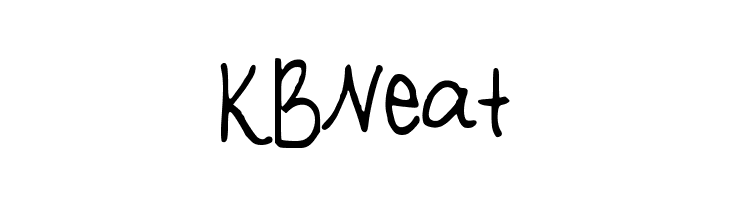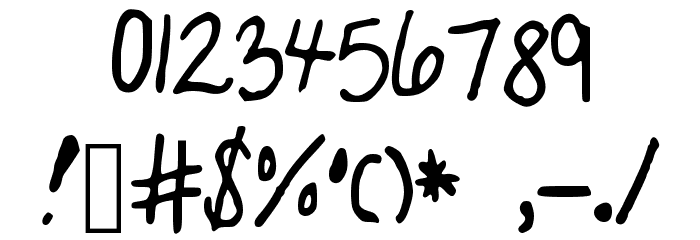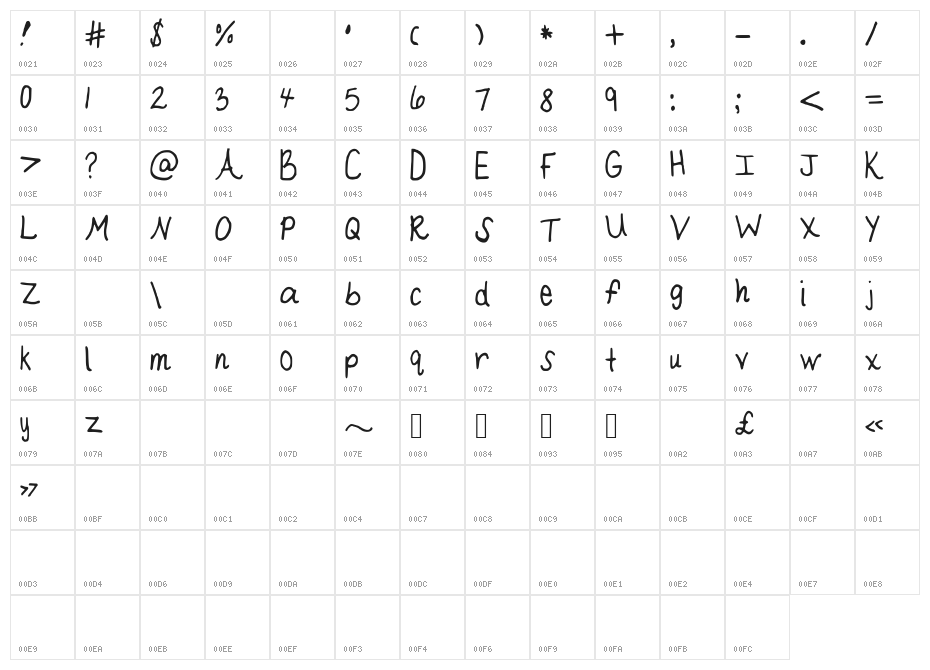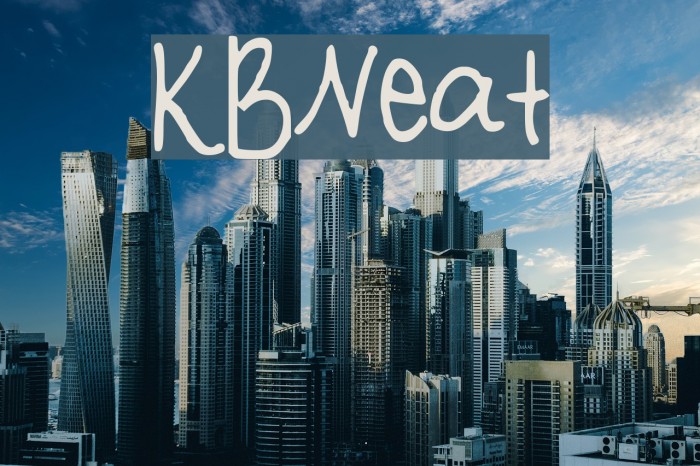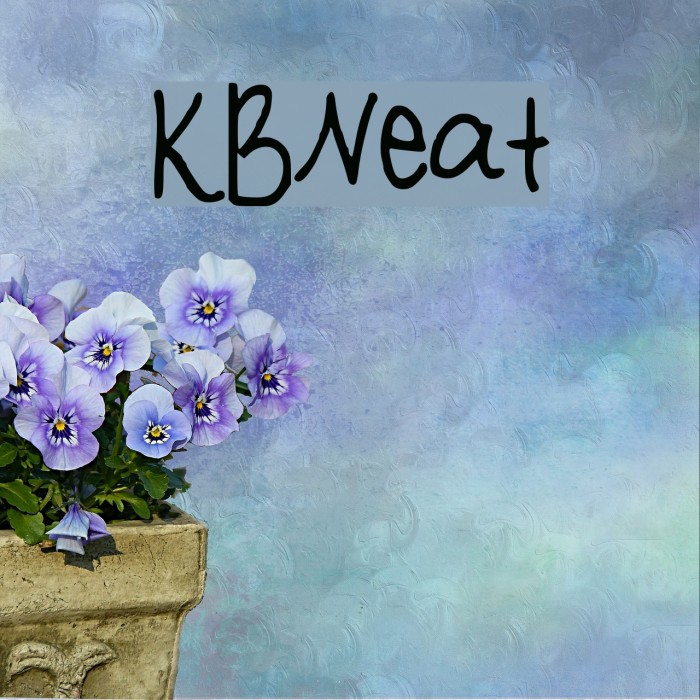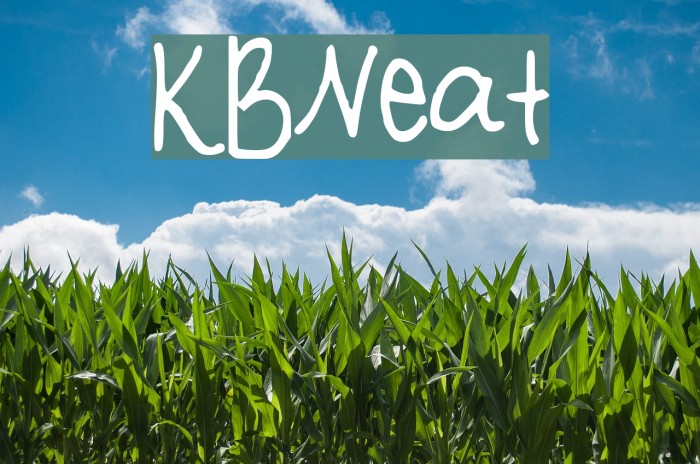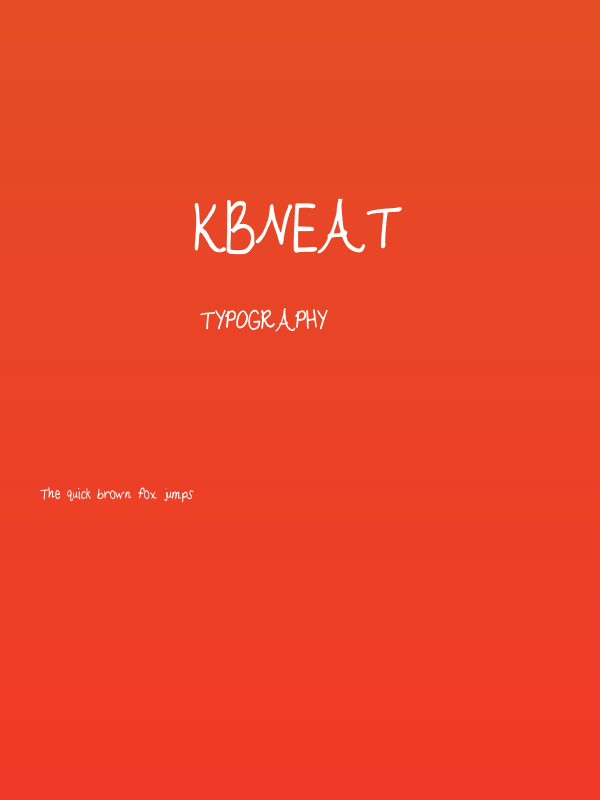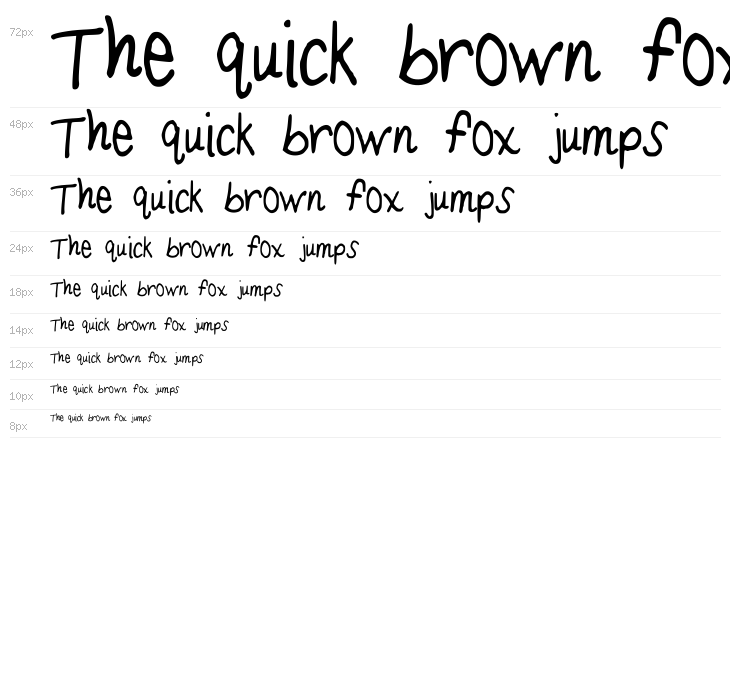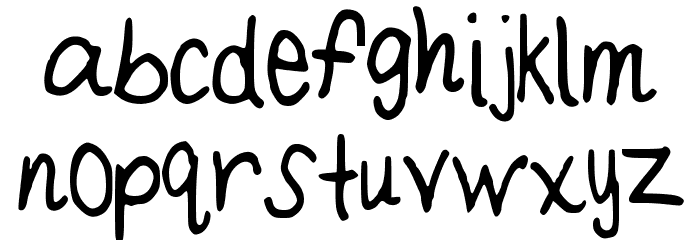
KBNeat Font
KBNeat Description
This font features a playful and casual handwritten style, characterized by its irregular and dynamic letterforms. The strokes are uneven, giving it a lively and informal appearance. Each character has a unique flair, with varying heights and widths, contributing to its whimsical nature. The font maintains a consistent baseline, ensuring readability while retaining its quirky charm. The numbers and special characters follow the same playful aesthetic, making it suitable for creative and informal projects.